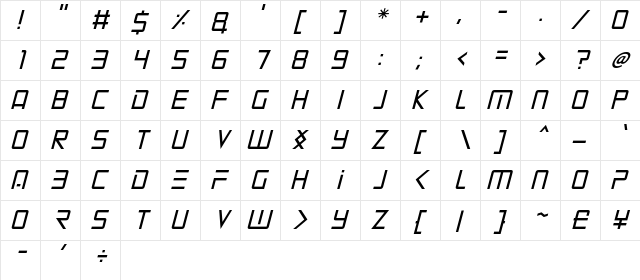
Mars Mission Italic
Design Context for Mars Mission Typeface
Mars Mission offers clean, dependable letterforms without strong stylistic allegiance, making it a practical choice for designers who need flexibility. The dynamic lean of this cut emphasises speed and emphasis in any layout.
Pro Tip: Try Mars Mission for annotation and caption copy alongside an upright companion — the contrast in angle creates a dynamic but ordered typographic system.